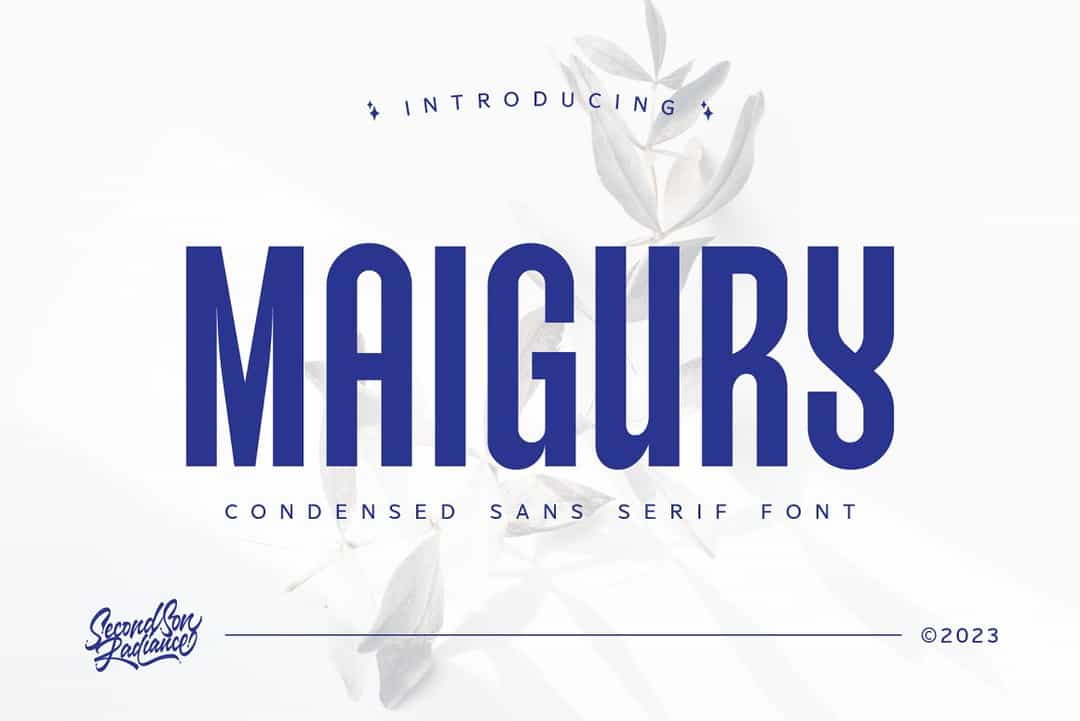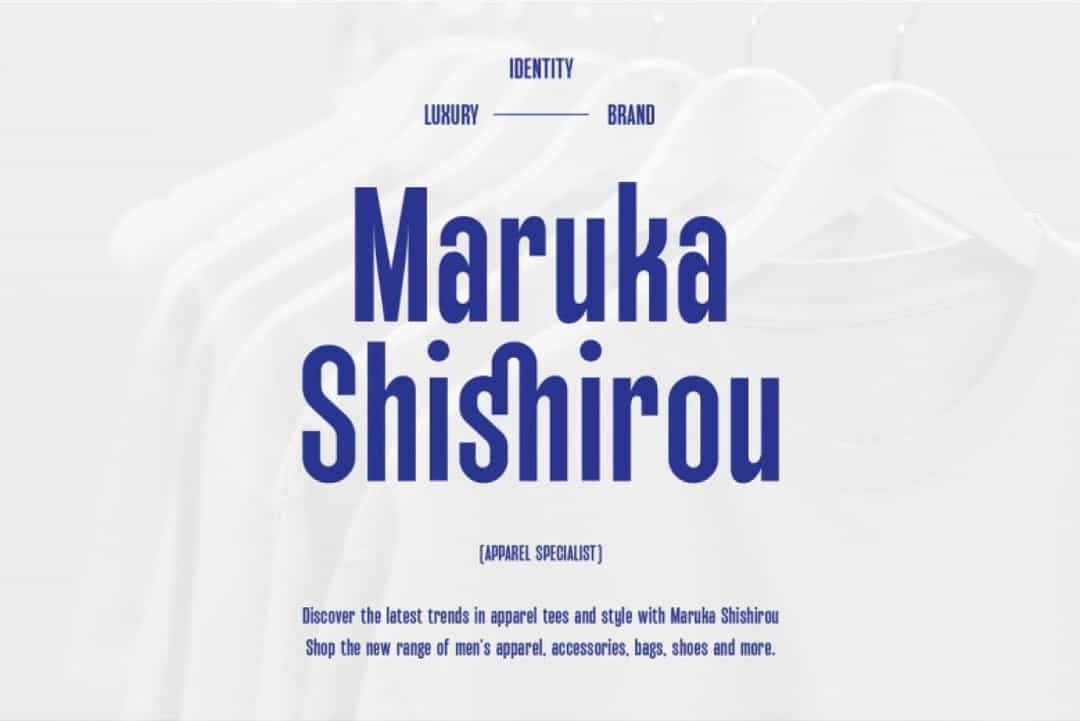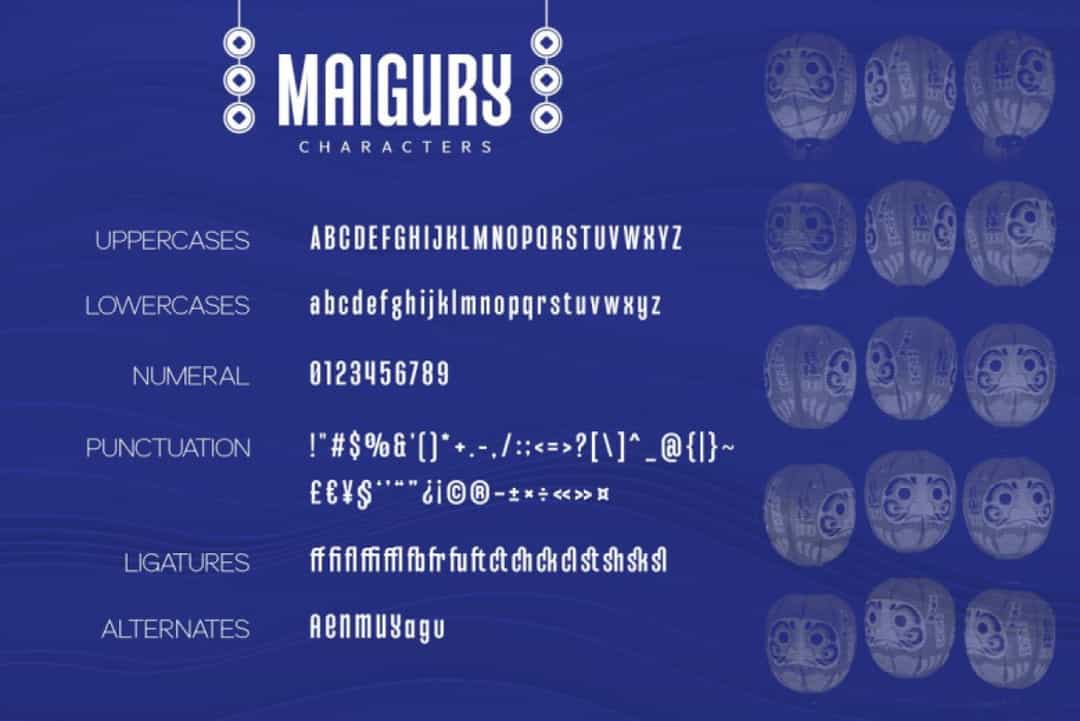
Maigury is an elegant yet charming sans serif font with Japanese influences, specially suited to luxurious feminine and elegant designs. This font was specifically created to meet the needs of designers across various fields such as logo branding, modern advertising designs, travel, holiday designs as well as music, fashion film, animation title poster titles or book, fantasy novel cover titles as well as website and blog editorial design work, cards or more.